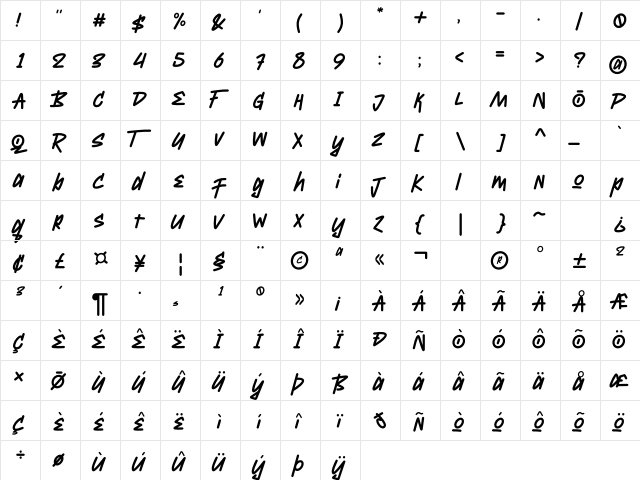
Randhu Regular
Design Context for Randhu Typeface
Randhu is a composed and adaptable typeface that performs quietly and consistently across a wide range of design contexts.